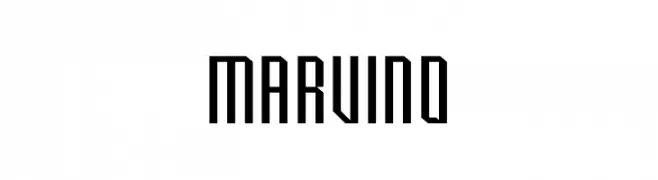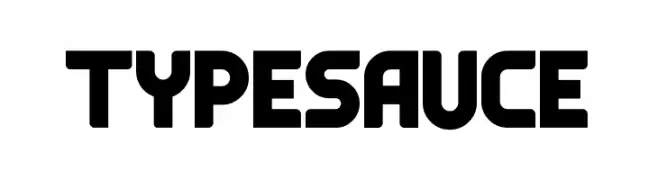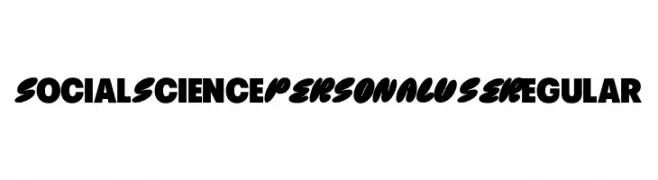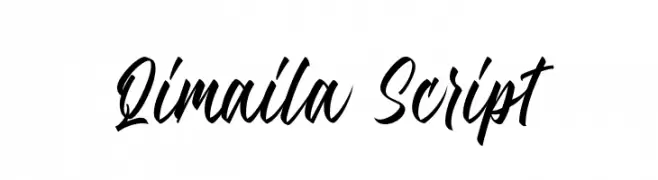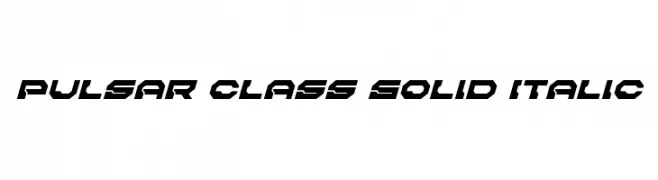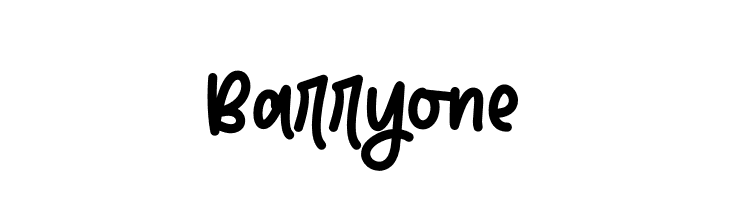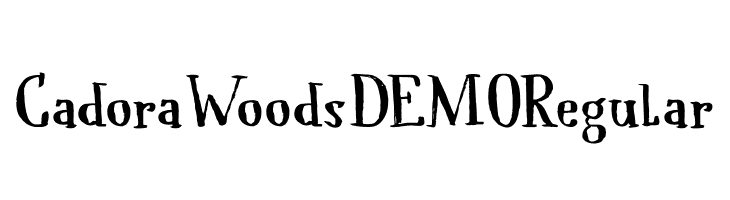
A bold, decorative font with a shadow effect, blending modern and vintage styles.
A bold, geometric font with sharp angles and a modern style.
A fluid, handwritten script font with a casual elegance.
A bold, geometric font with unique cutouts and rounded edges.
A bold, playful font with rounded, thick characters ideal for lively designs.
A bold, italicized font with a modern, geometric style.
A bold, expanded, and italicized font ideal for dynamic designs.
A bold, elegant script font with flowing, cursive strokes.
A bold, italicized font with a futuristic and angular design.
A bold, playful, and hand-drawn font with a whimsical style.